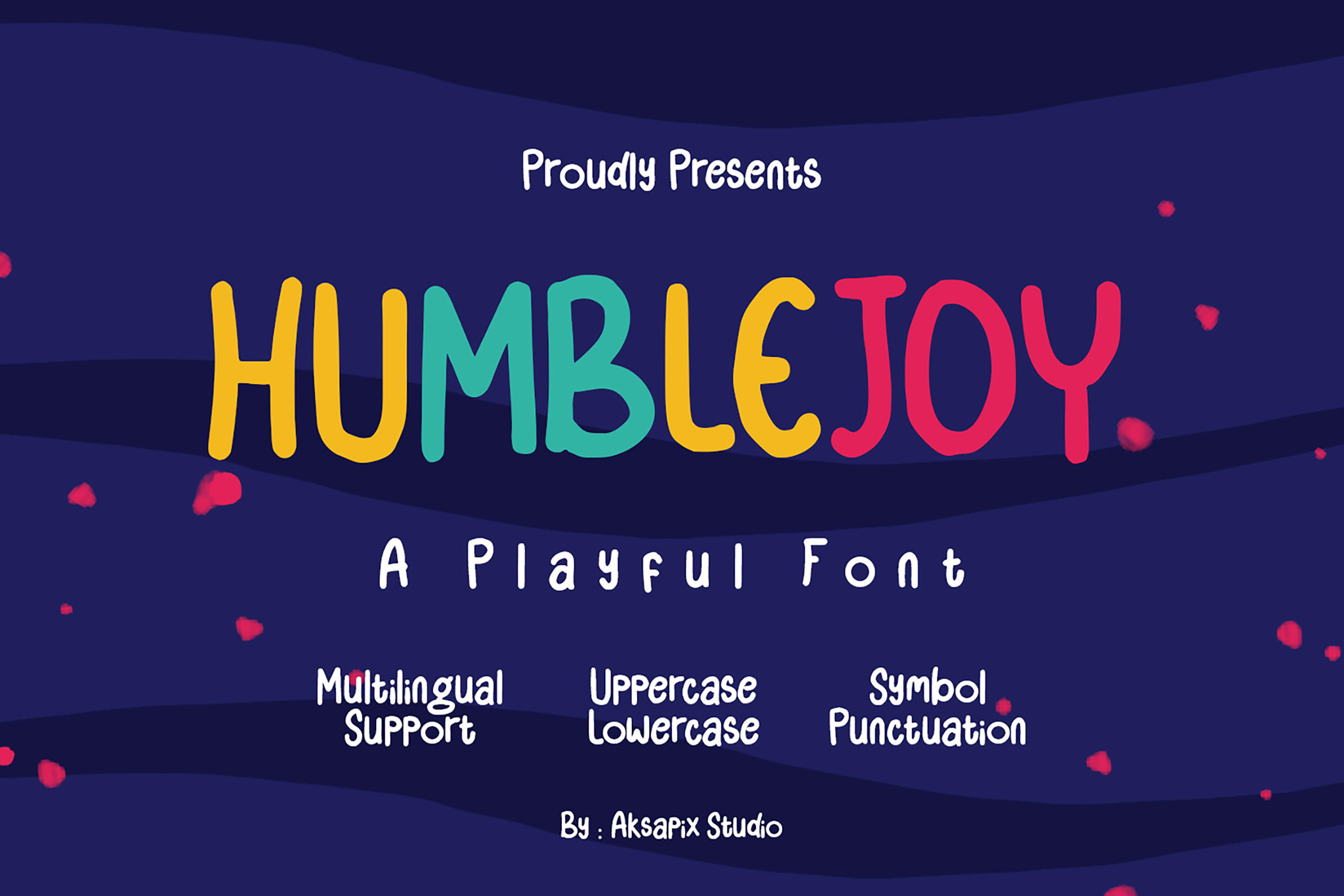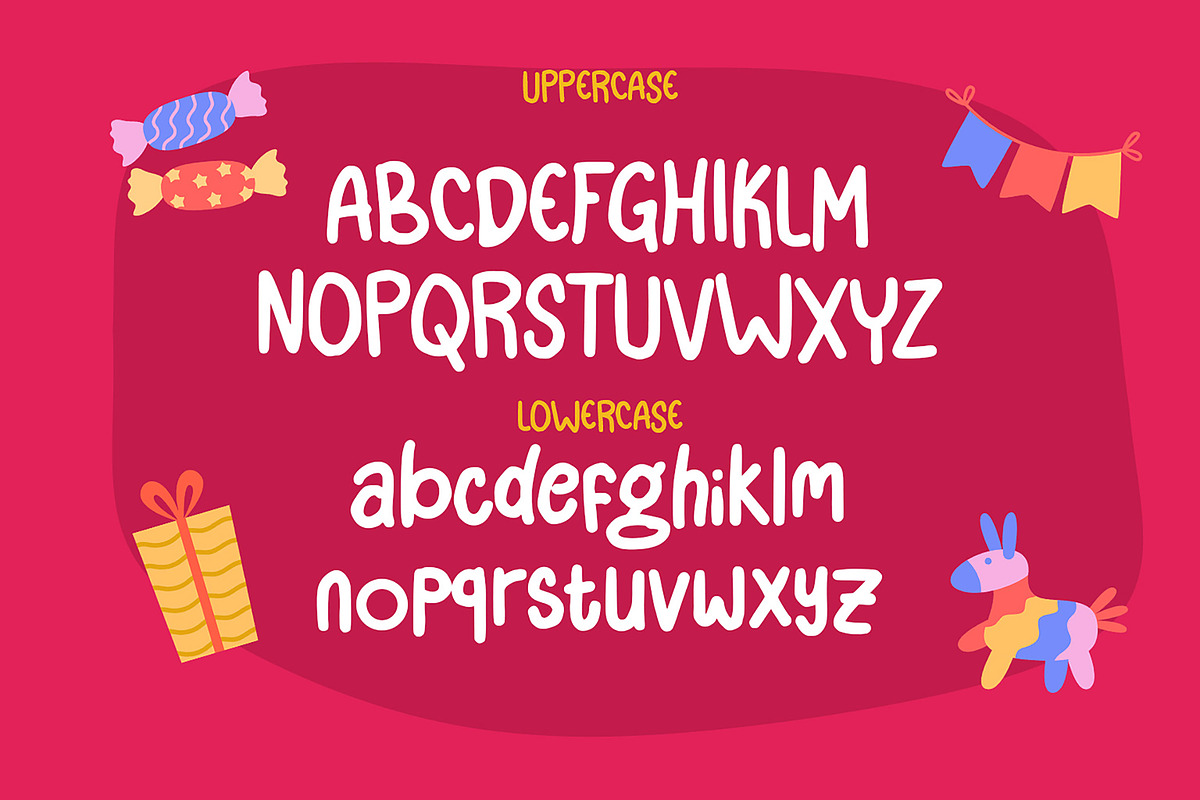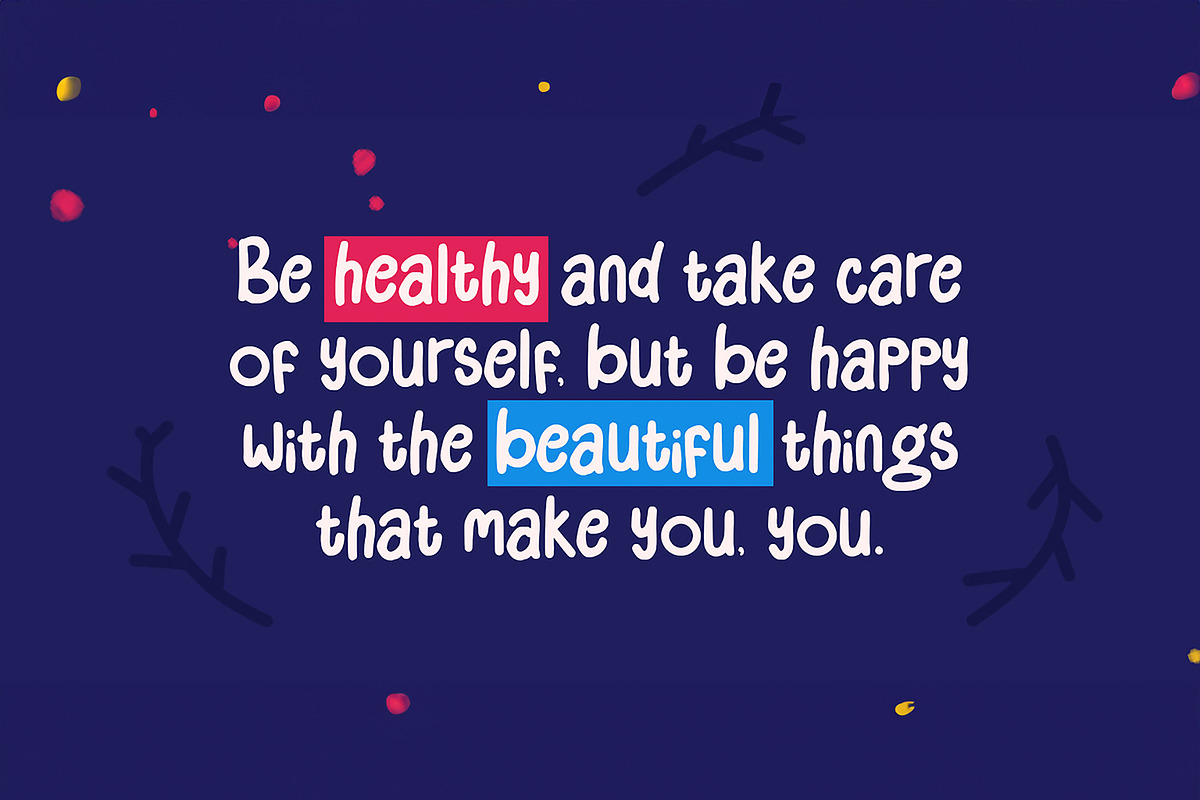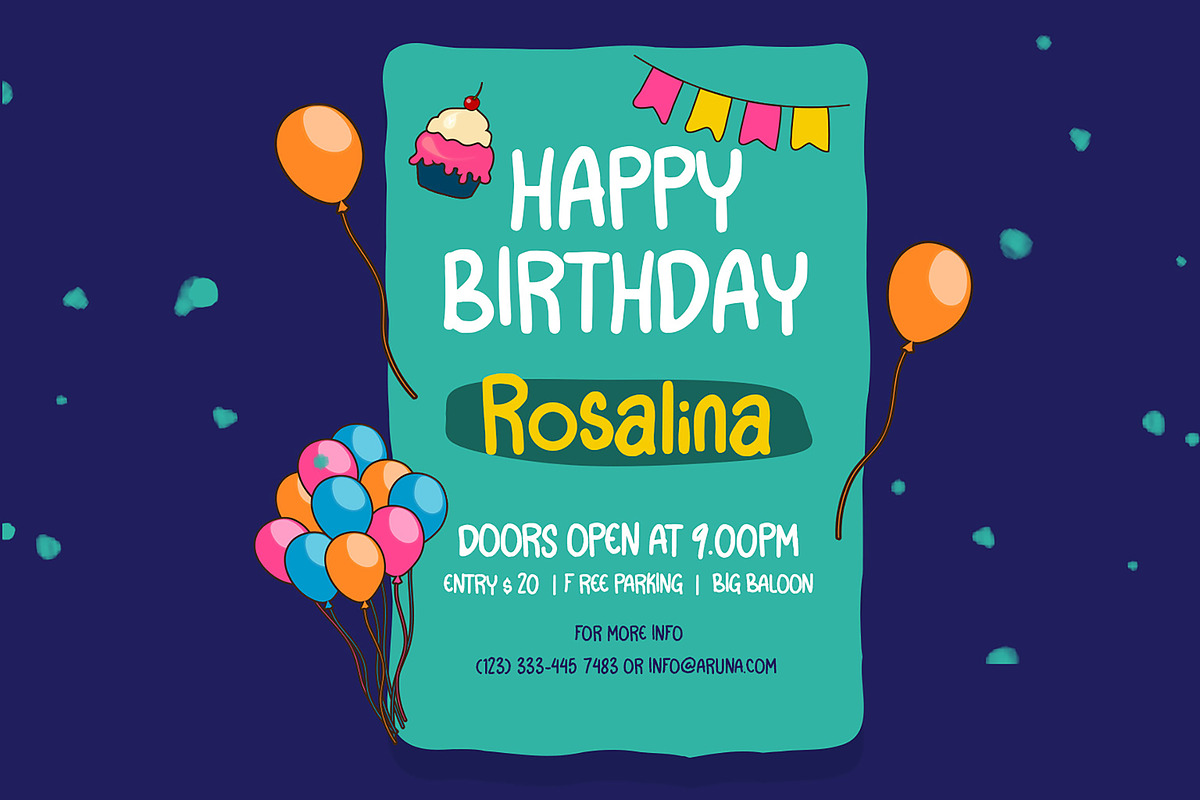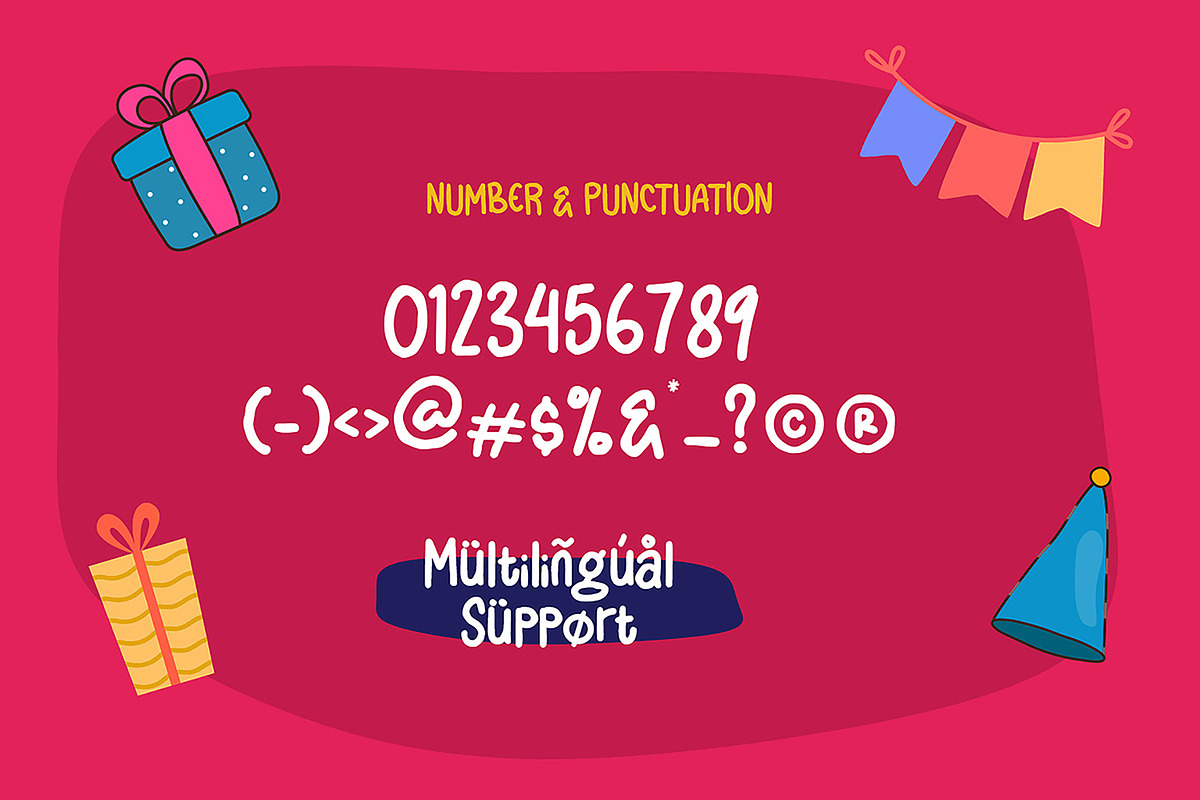
Humblejoy - Playful Display Font
Humblejoy - Playful Display Font is a delightful typeface crafted to infuse a playful and whimsical charm into your design projects. Tailored for a wide range of applications, this font is especially well-suited for creating eye-catching posters celebrating the joys of childhood, playful birthday invitations, lively greeting cards, and fun-filled social media designs.
Punctuation & Numbers
Playful Aesthetics: Humblejoy exudes a playful and cheerful vibe, adding a sense of joy and wonder to your designs. The font's distinct style captures the essence of lightheartedness, making it a perfect choice for projects centered around children.
Versatility in Design: Whether you're crafting posters, birthday invitations, or social media content, Humblejoy's playful display font effortlessly adapts to various design contexts, injecting a dose of fun into every creative endeavor.
Multilingual Support: Humblejoy embraces diversity with comprehensive multilingual support, allowing you to convey your message across different languages and cultures with ease.
Bring your designs to life with the lively spirit of Humblejoy. The font's playful demeanor and multilingual capabilities make it an ideal choice for projects aimed at celebrating the vibrant and carefree world of childhood.